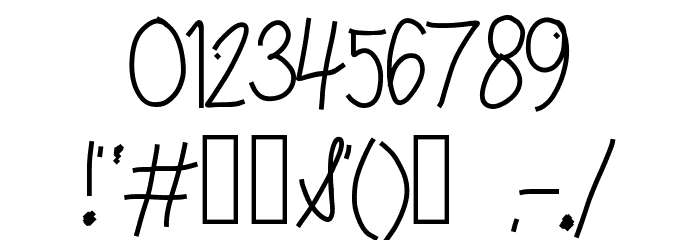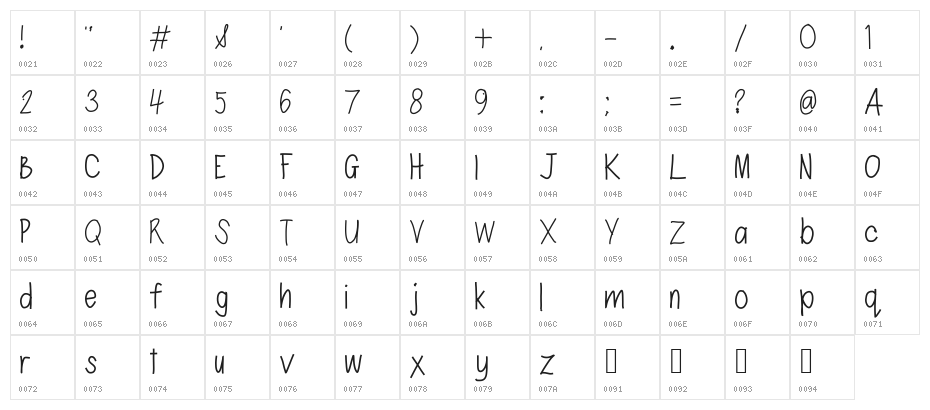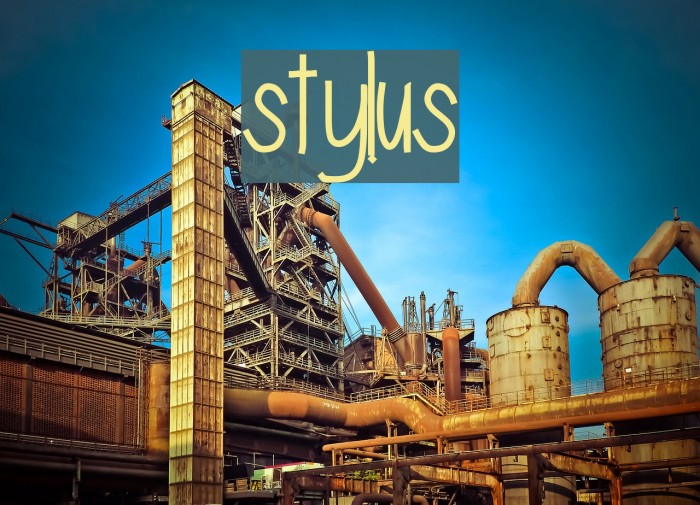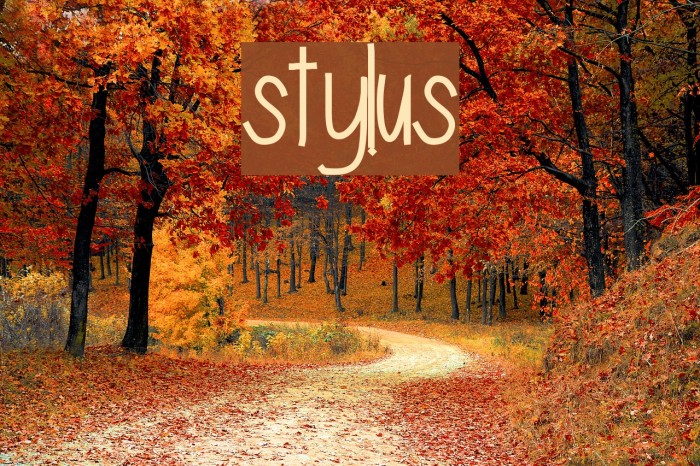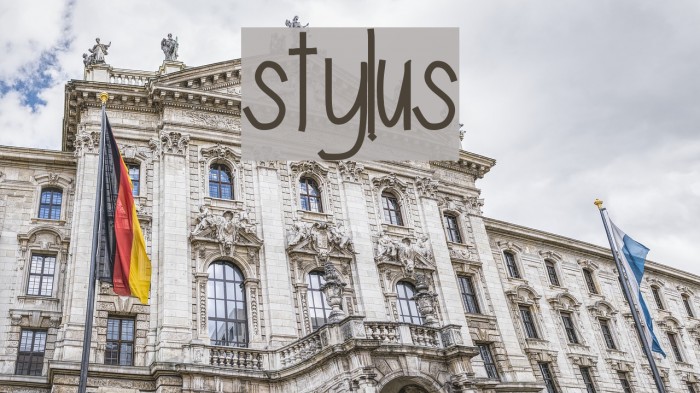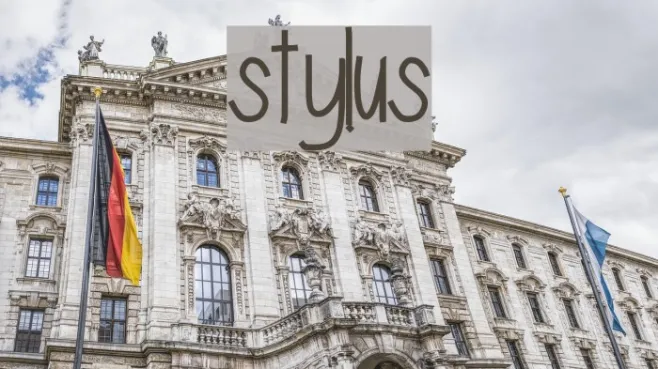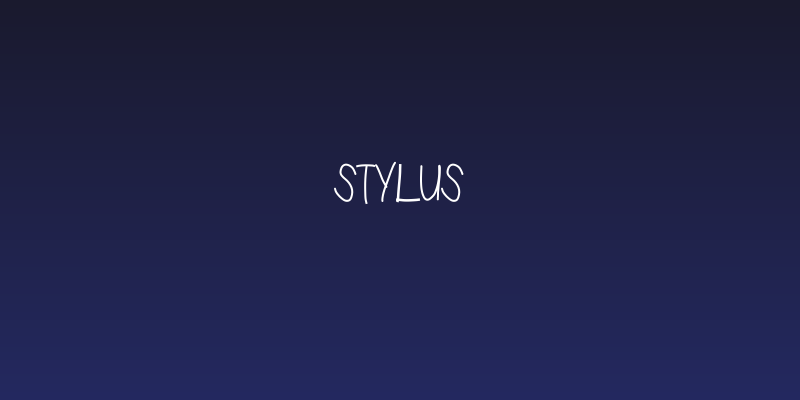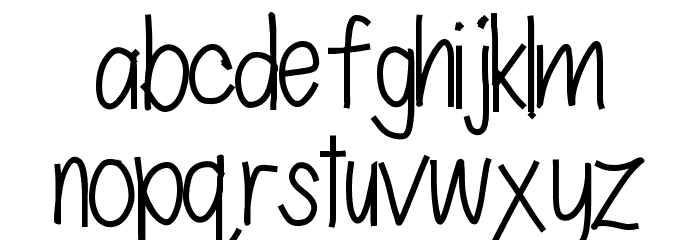
stylus Font
stylus Description
This font features a playful and casual handwritten style, characterized by its irregular and slightly whimsical letterforms. The strokes are smooth and fluid, giving it a personal and informal feel. The uppercase letters are tall and narrow, while the lowercase letters maintain a consistent height, adding to its approachable nature. The numbers and special characters follow the same style, ensuring uniformity across all glyphs. This font is ideal for projects that require a friendly and relaxed tone, such as children's books, personal blogs, or creative branding.
| Proposed Projects | Ideal for children's books, personal blogs, creative branding, and informal invitations. |